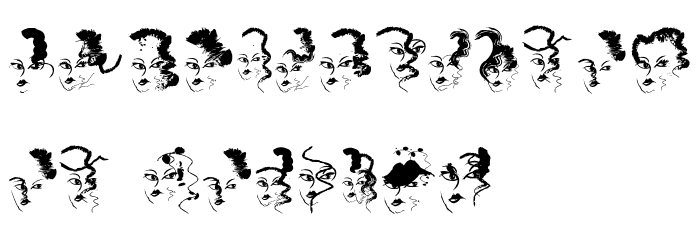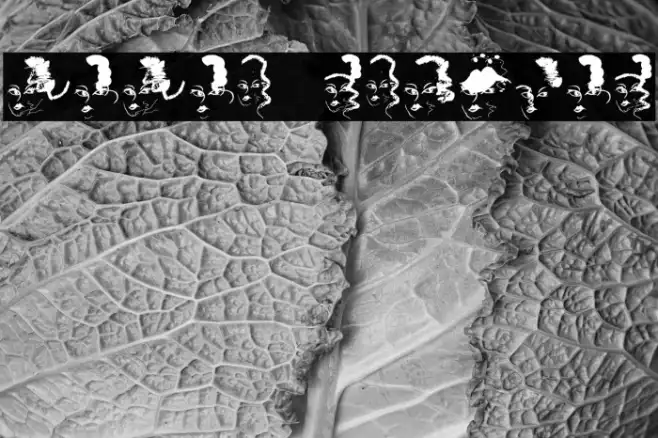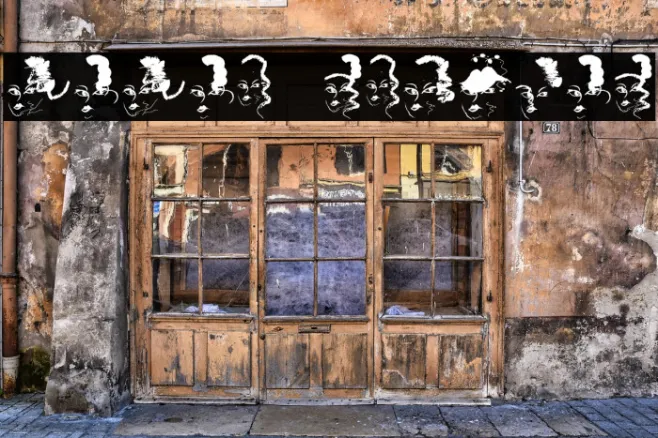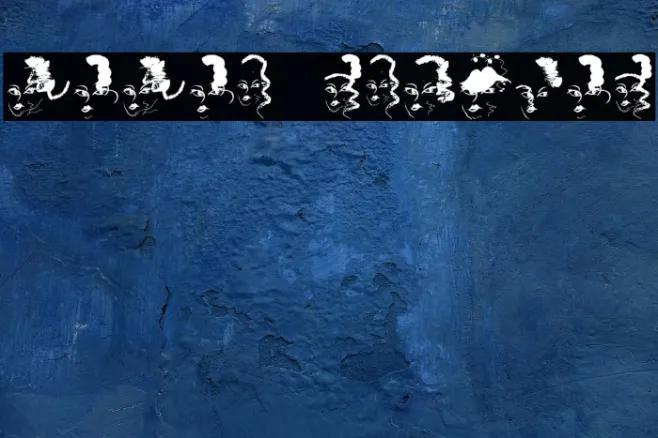
Babaye Regular Font
This font is a highly decorative and artistic typeface that incorporates intricate illustrations of faces into each character. The design is unique, with each letter featuring detailed and expressive facial features, making it more of an art piece than a traditional font. The characters are composed of swirling lines and bold strokes, creating a sense of movement and emotion. This font is not suitable for body text due to its complexity and decorative nature but serves as a striking visual element for creative projects.
An artistic and decorative font featuring intricate face illustrations within each character.
- Font: Babaye Regular
- Proposed Projects: Ideal for creative projects such as art posters, album covers, or any design work that requires a unique and visually striking typeface.
- Use Case: Logos, Art projects, Posters